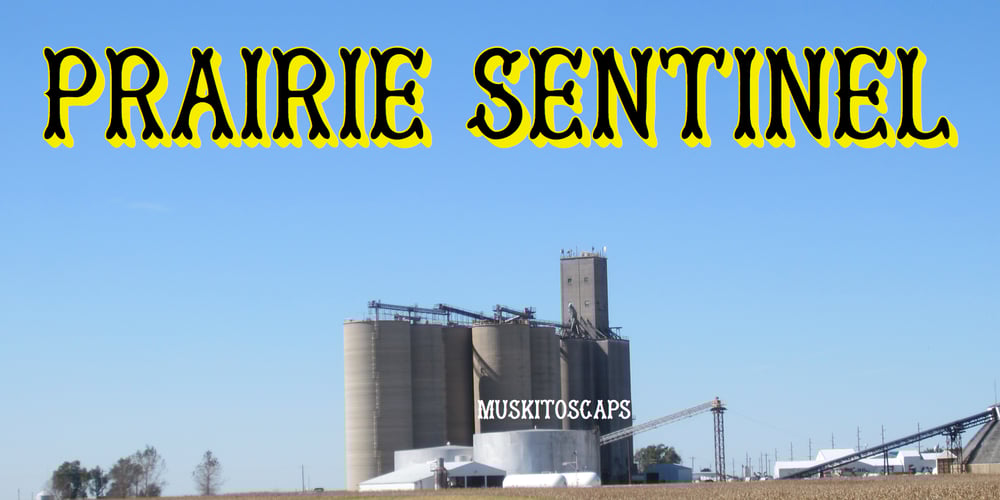
MuskitosCaps
MuskitosCaps font
MuskitosCaps Font Family was designed by Robert Schenk and published by Ingrimayne Type. MuskitosCaps contains 3 styles and family package options. MuskitoCaps is a Tuscan (split-serif) font that is rather narrow and a bit awkward. It is caps only, though the lower case differs from the upper case(the lower case lacks the mid-stem spike). The family has three styles, plain, shadowed, and shadowinside. The last has the same shapes as the plain style but has the spacing of the shadowed style so it can be layered with the shadowed style to easily produce bi-colored lettering.